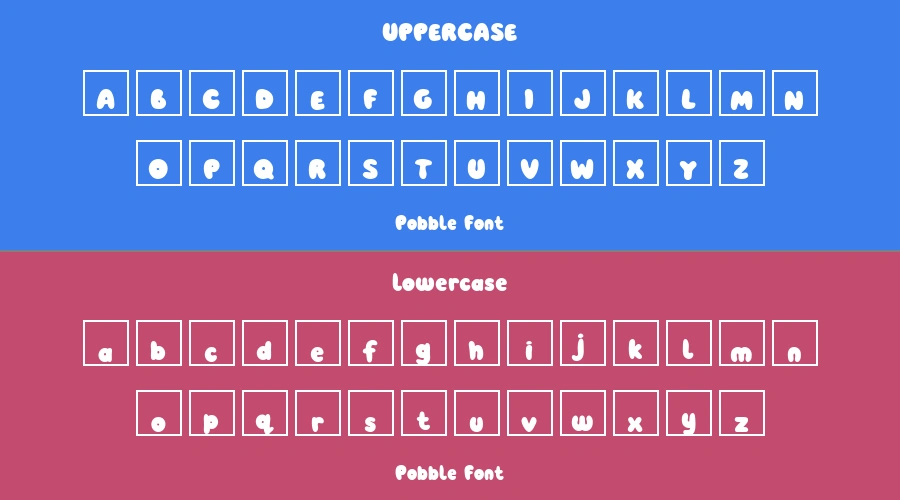
About Pobble Font
Pobble Font embodies typographic excellence through its masterful combination of original character and versatility. Created for book design, this typeface delivers exceptional scalability and technical excellence across all applications. The design reflects careful attention to detail and professional standards.
Advanced capabilities include distinctive curved brackets and versatile word-end alternates, giving designers creative control. When used in compliance seals, Pobble Font exhibits remarkable detail preservation. The harmonious balance between aperture size and market positioning sets this typeface apart.